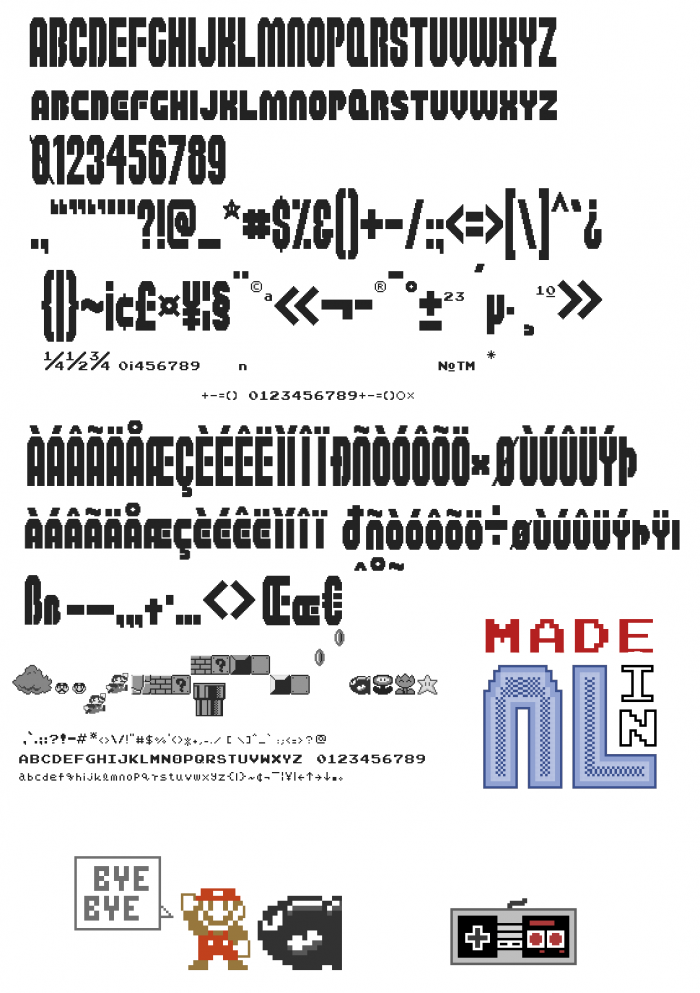
• SUPER MA(RE-)O BROS.
A bitmap typeface family that recaps the classic fonts that were used for 1985 Nintendo Entertainment System game "Super Mario Bros."
-- It's a large piece that covers a bit of everything. And two seporate typefaces will be published the following days to accompany this one seemlessly.
both more less finished as well, but changes were made in this one that requires the other two to be fixed again in order to seemlessly work together before getting published, So stay tuned!
About this fist part:
It combines not just the two (title screen and ingame regular text) fonts used for this game, but also includes dingbats related to the game, and combines it all into one single typeface!
The sample will only display correctly at exact pixel size or double the value of this due to dither gradients that otherwise not show as a solid surfaces.
Basic and Extended Latin - letters seen at title screen
Superscripts and Subscripts -  regular text font (only partial alphabet, as according to the unicode standard for this block)
Miscellaneous Symbols - miscellaneous dingbats related to the game such as emoji's and blocks to make seemless ornamental features like seen ingame
Halfwidth and Fullwidth Forms - regular text font but with full suport for both uppercase & lowercase, as well as numerals and basic punctuation.
lowercase Q is slightly taller...
superscript +-()= should be at the top, not the bottom...
U-rings are missing rings
Capital Y-umlat missing umlat
Thanks Se7en, all fixed. 0 in superscript already was at both top and bottom, I also forgot placing parenthesis at top.
i dont think the number 0 would be crossed out that much..